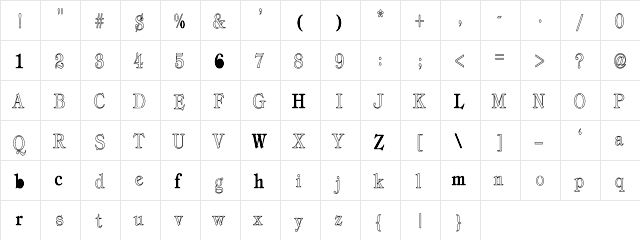
Tiffany-ThinHC Regular
Design Context for Tiffany-ThinHC Typeface
Tiffany-ThinHC offers clean, dependable letterforms without strong stylistic allegiance, making it a practical choice for designers who need flexibility. Its slender proportions lend an understated elegance to any composition.